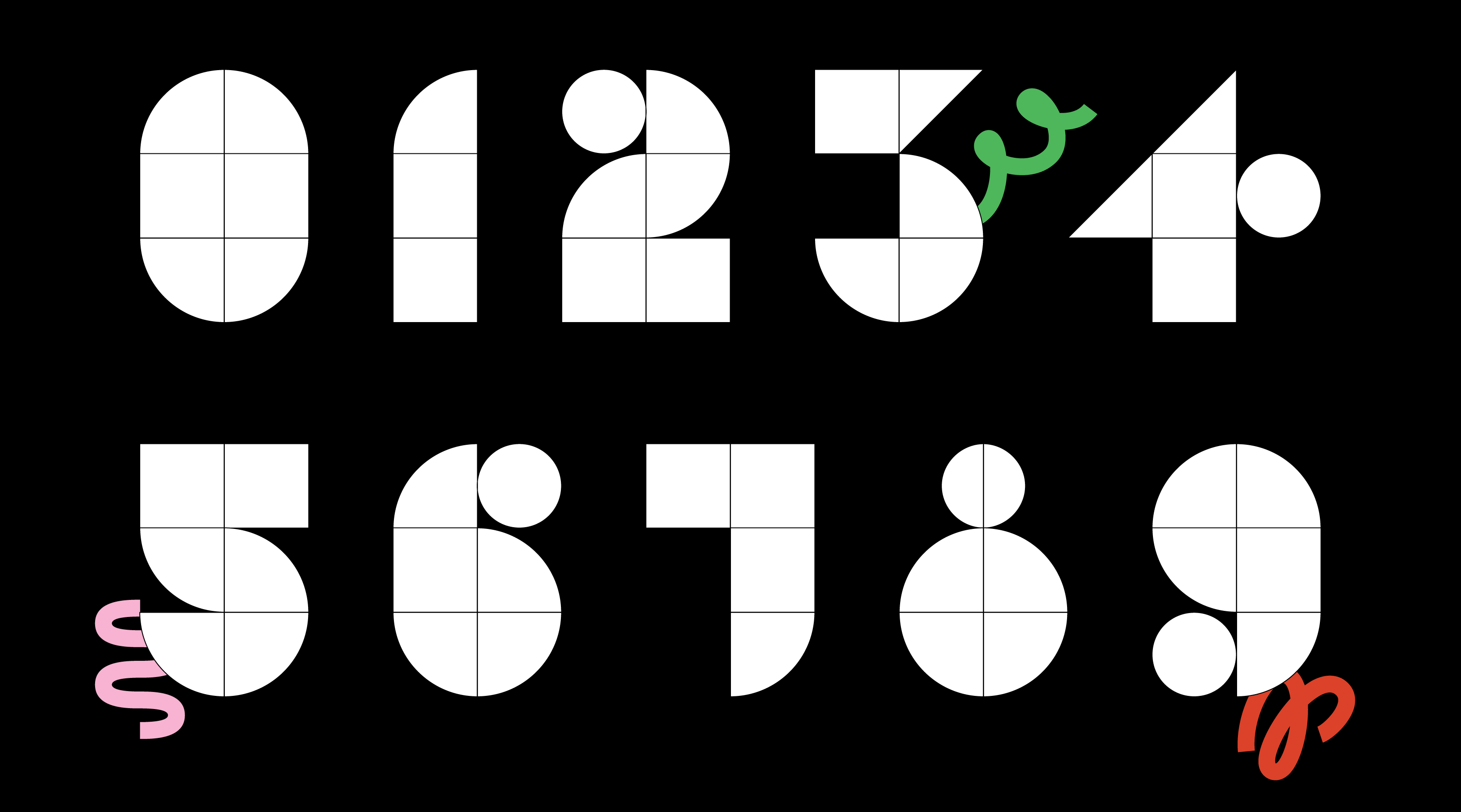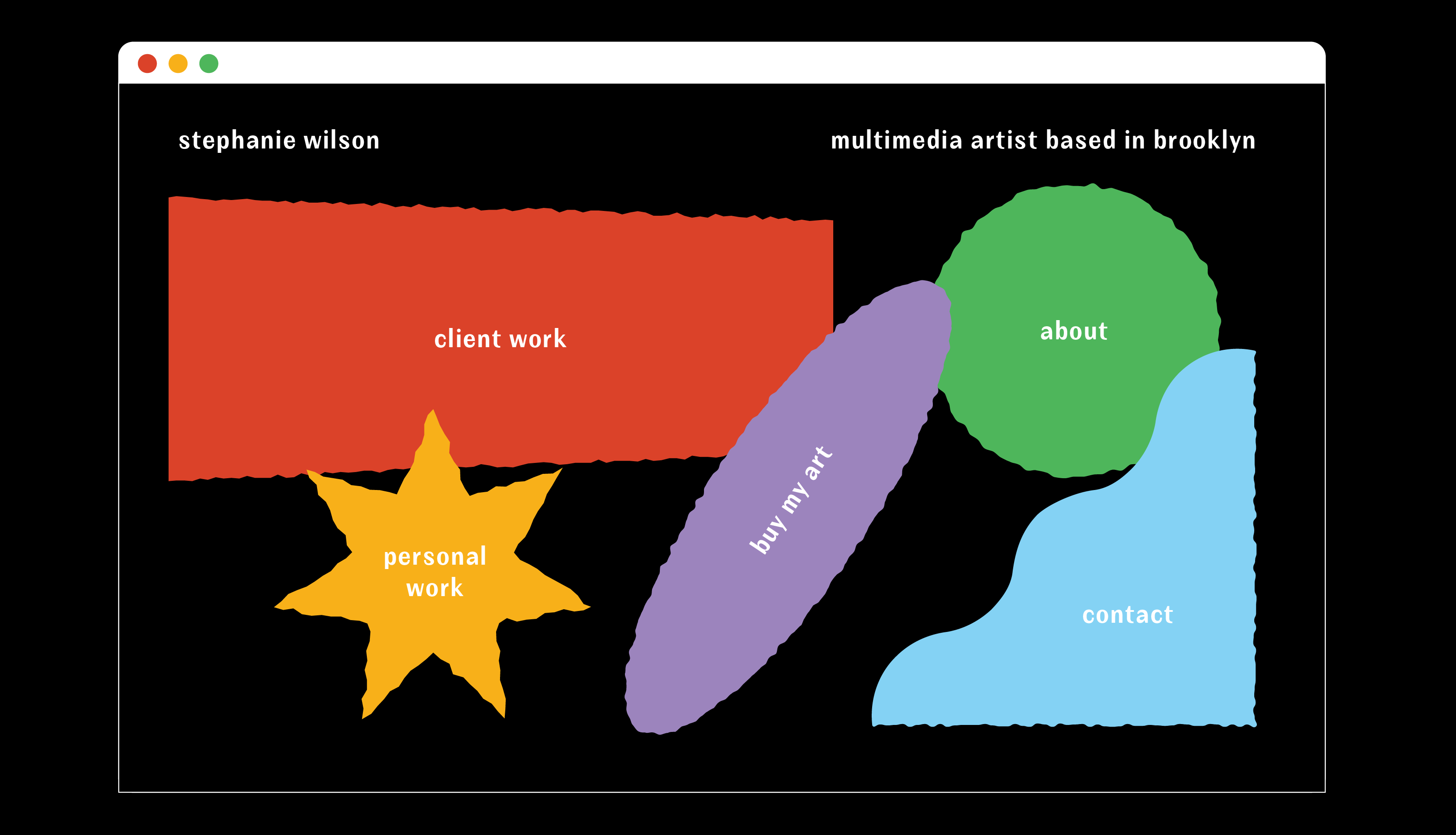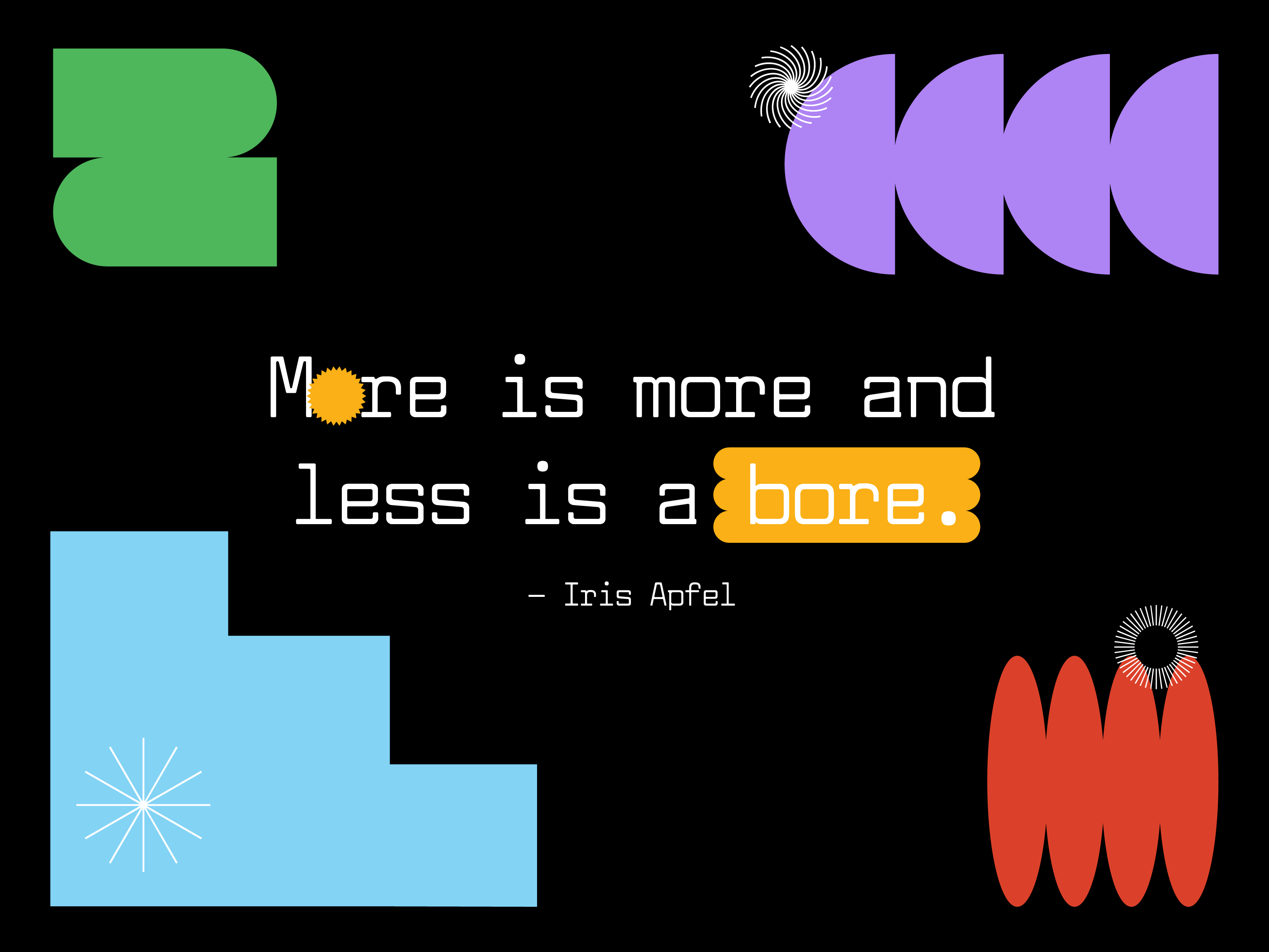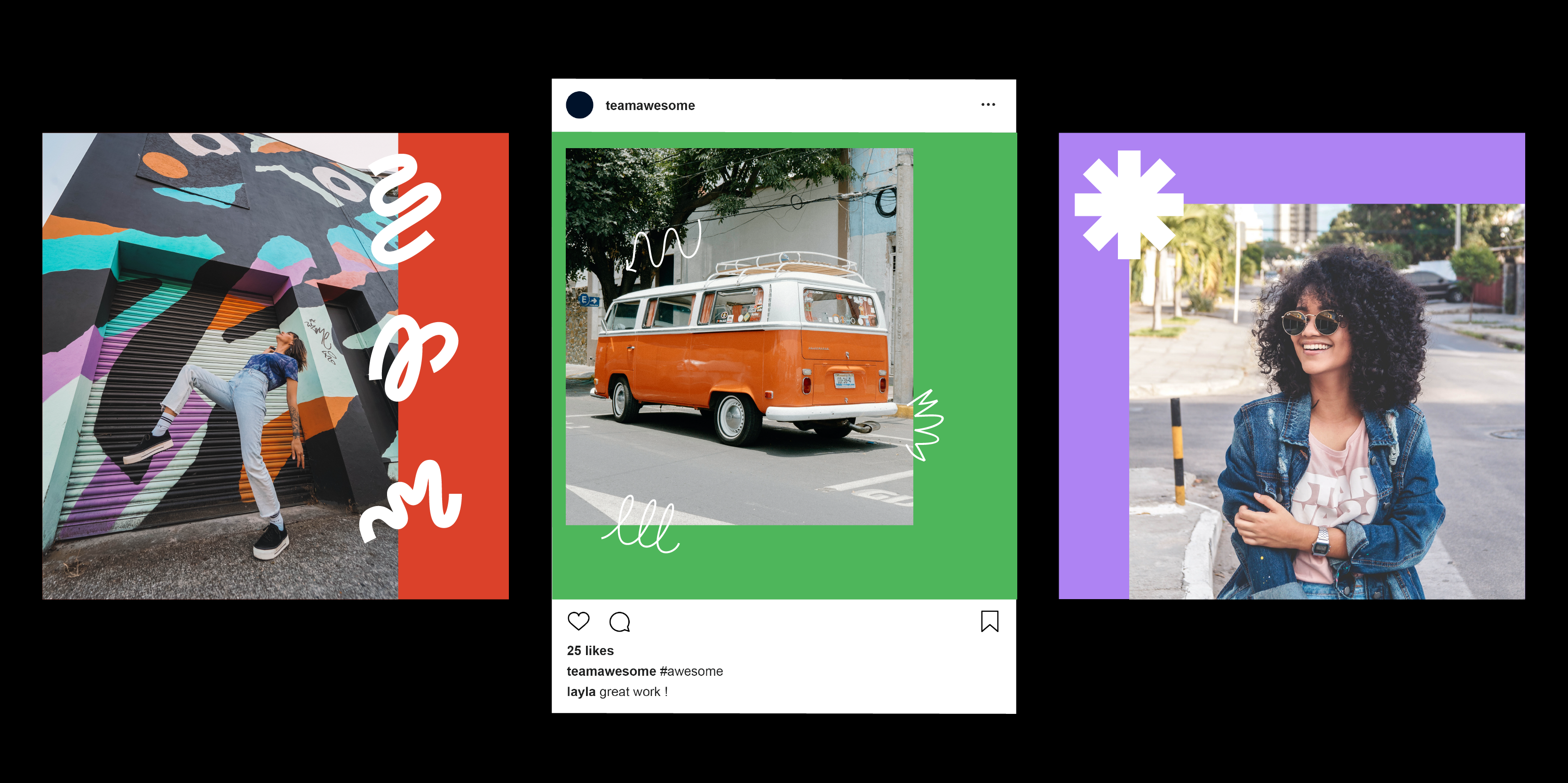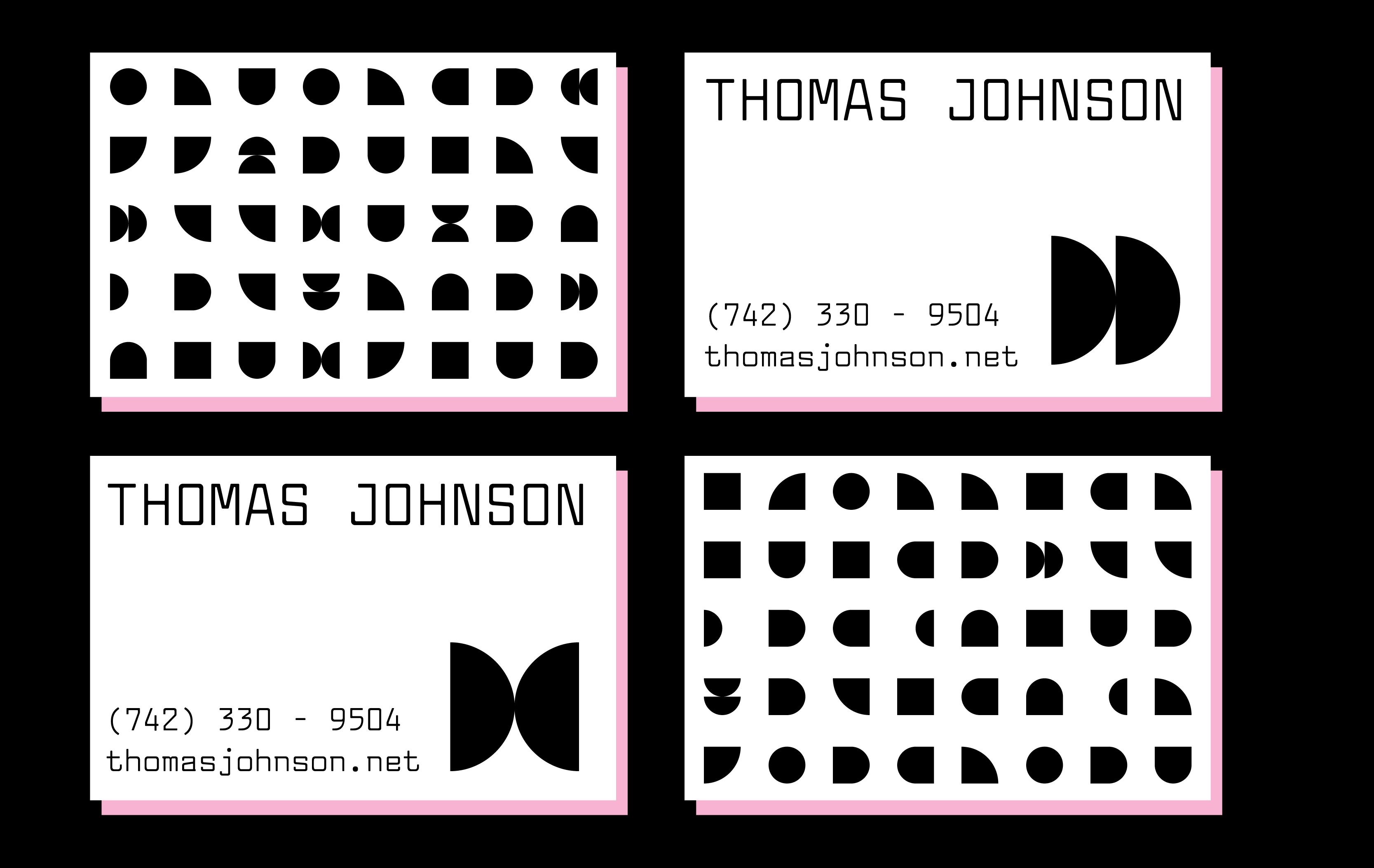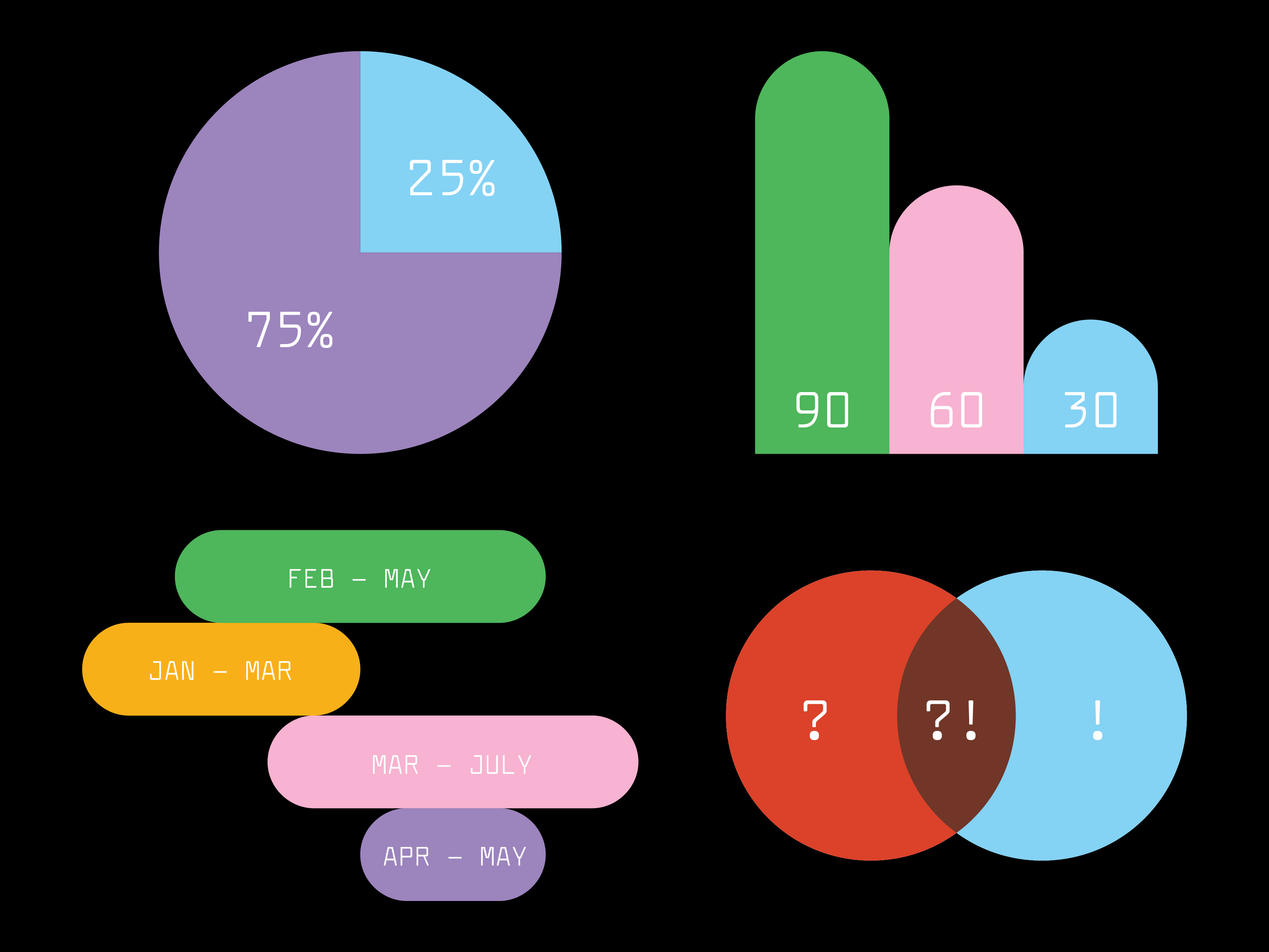
TDN Dingbats
Suns and Squigs Shapes Patterns Doodles Collage Borders
As a big dingbat fan and user, I had to create my own set. TDN Dingbats have six styles that can be purchased individually or as a family. I hope they're as useful to you as they are for me. <3
Why a dingbat font?
✳ Font files are small
✳ Shapes are easily accessible in any program
✳ Can be used as bullets, patterns, and brand accents
✳ Easy to access vectors
Tips for using dingbat fonts:
✳ Try using the tracking and leading features in the font panel to see if you can create some cool patterns